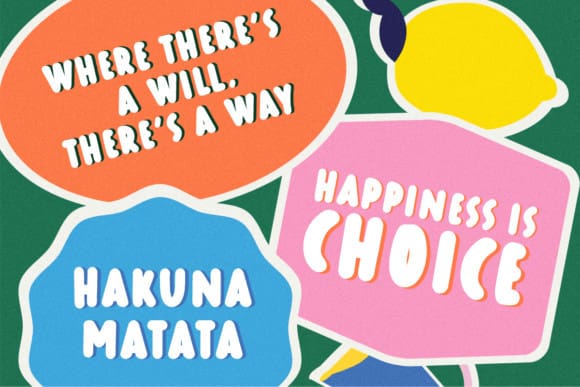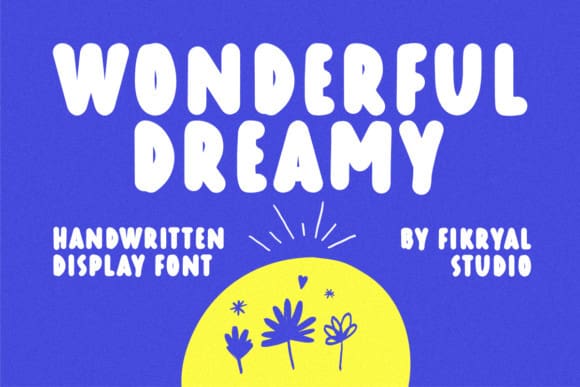
Wonderful Dreamy Font
Wonderful Dreamy Font is a bold and unique handwritten display font that will give your designs a touch both beautiful and whimsical. With bold strokes and playful curves, this font is perfect for creating eye-catching titles, logos, and more.
Wonderful Dreamy’s handcrafted nature makes it stand out from other display fonts, giving your designs a personal and authentic feel. It is versatile and suitable for a variety of design projects, from greeting cards to social media graphics and branding.
Whether you’re designing for a fashion brand or a children’s book, Wonderful Dreamy will add a touch of magic and creativity to your work. So why not bring your designs to the fore with this awesome font? Try it today and let your imagination soar!